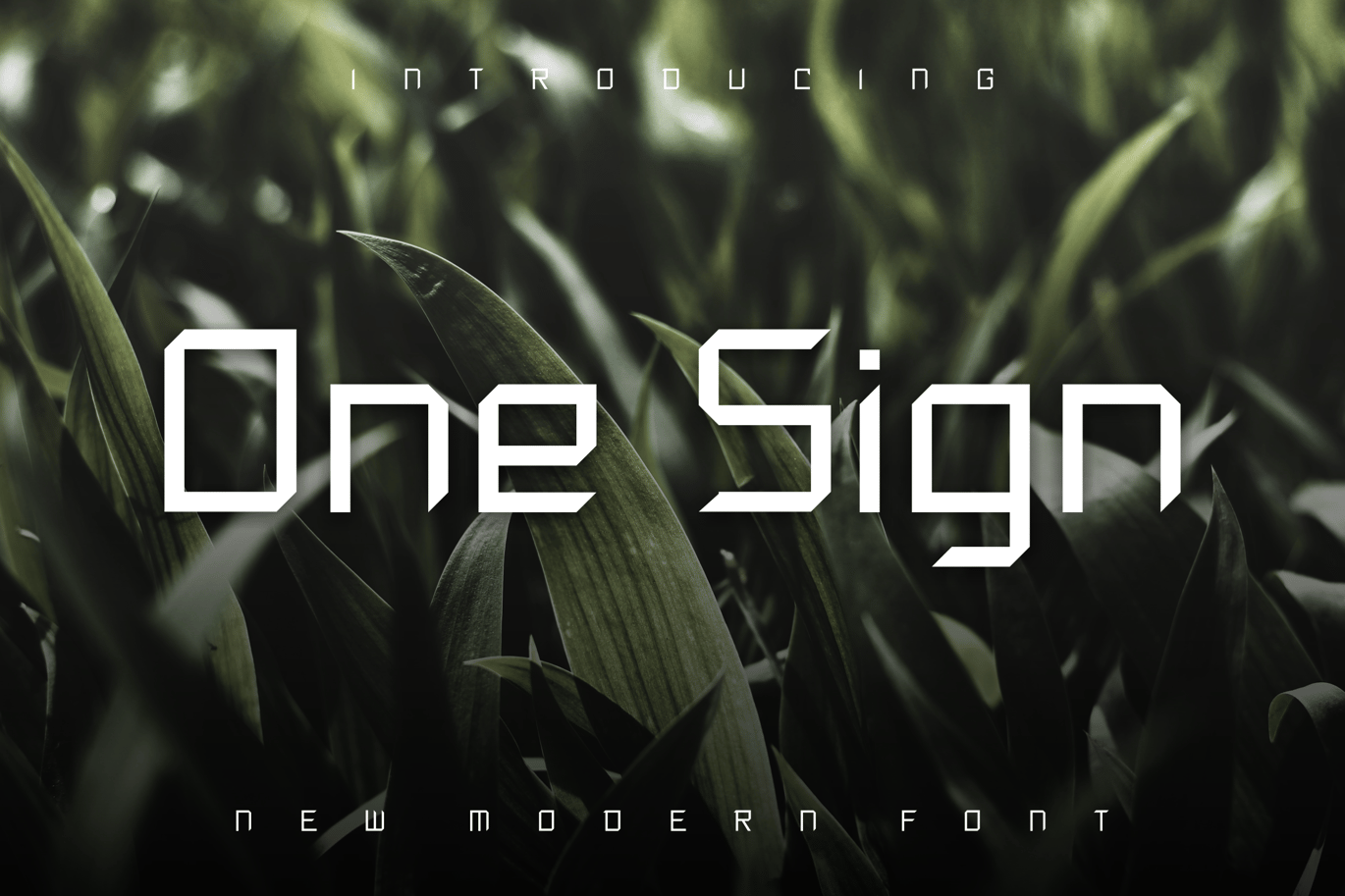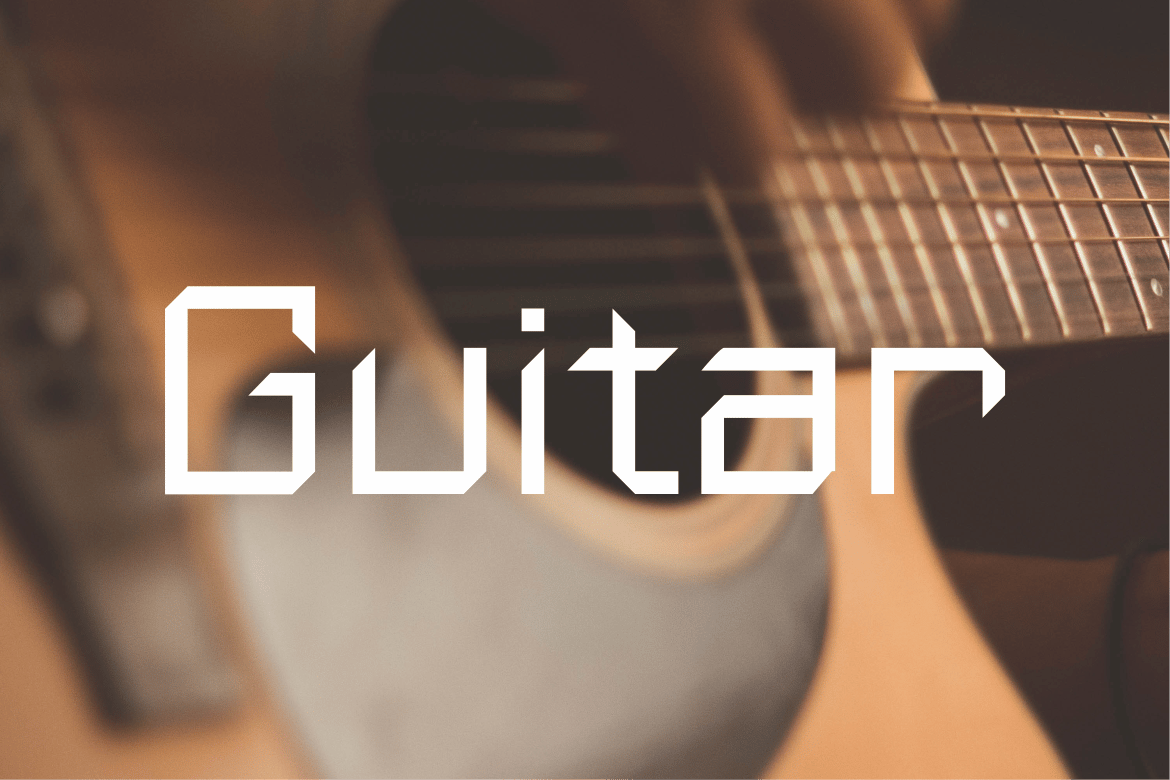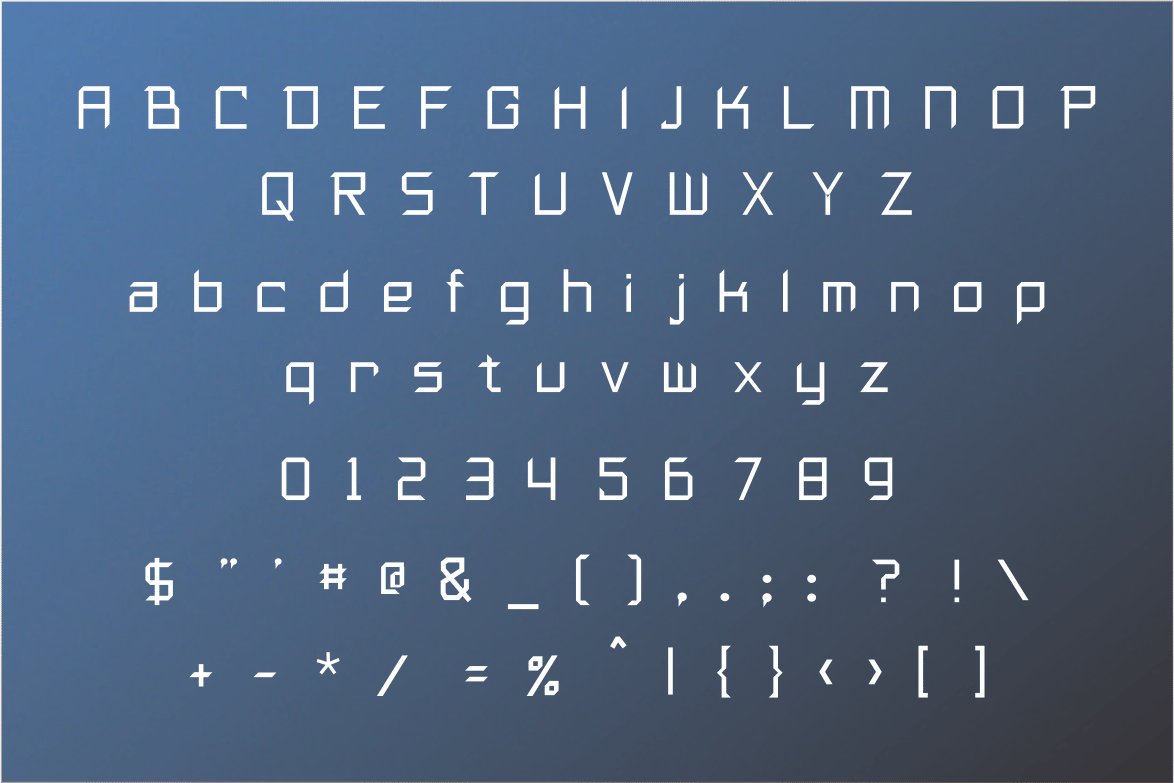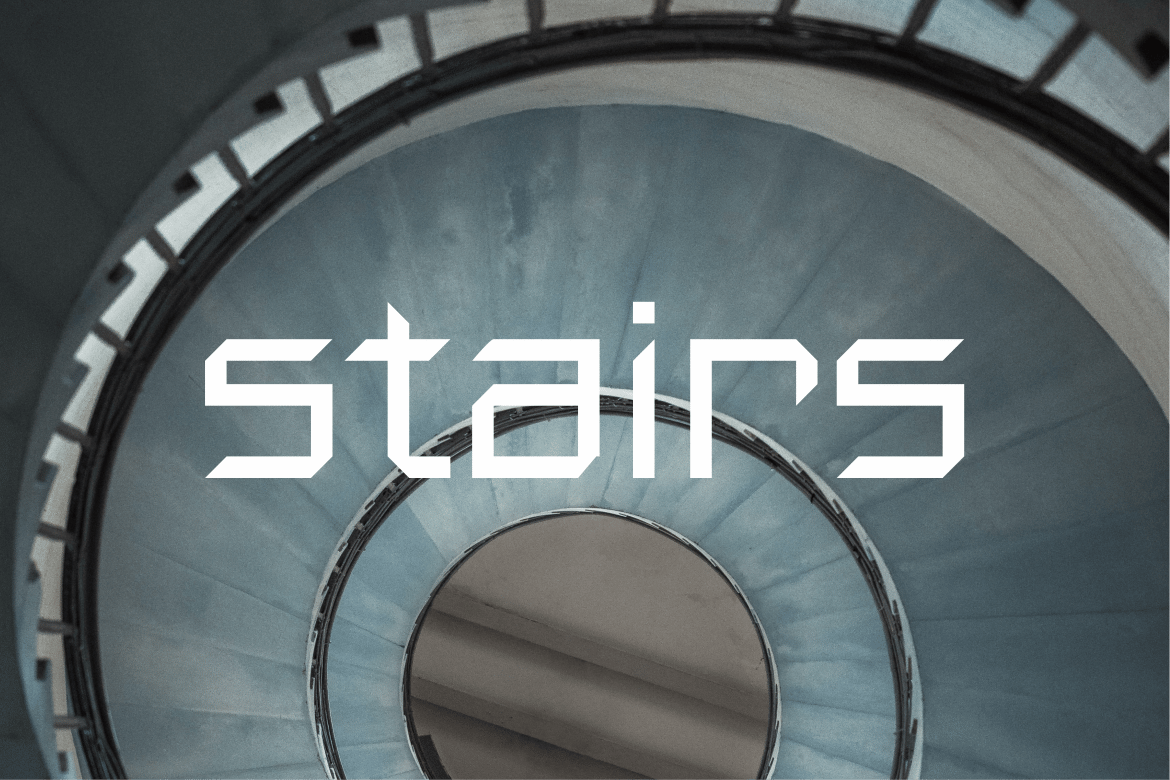
One Sign Font
Proudly present our new product One Sign Font
One Sign Font is a modern and authentic font. Perfect for both professional and branding needs of a product.
Designed as a versatile and flexible that can be used on a range of projects and mediums.outstanding in a wide range of contexts.